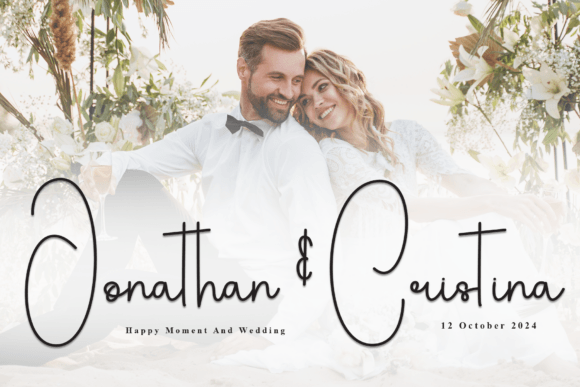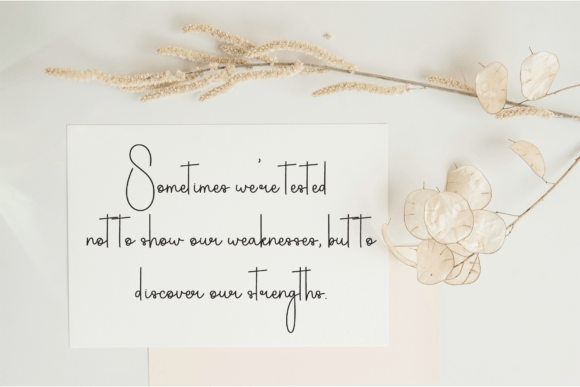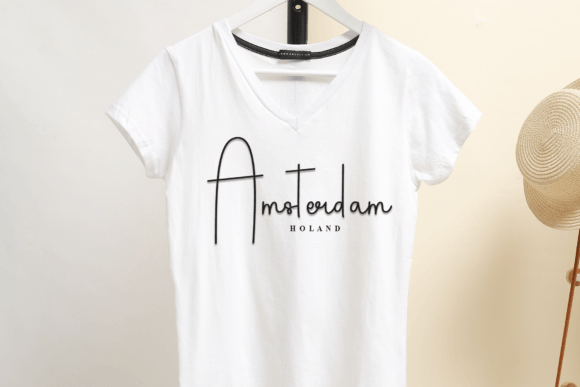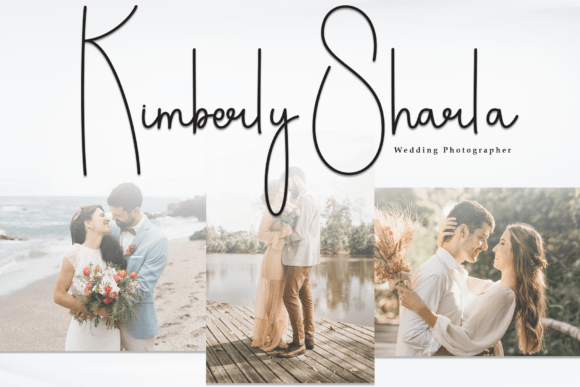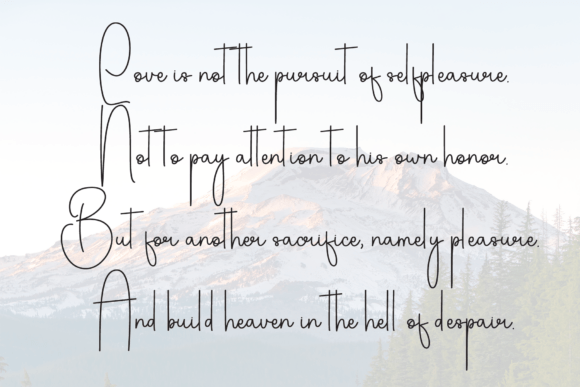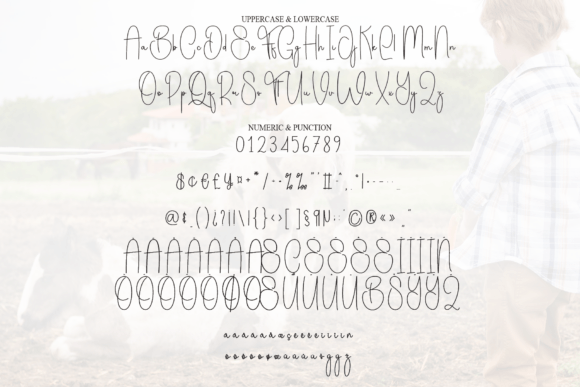
Introduction to Baby Farmhouse Font
Have you ever been browsing through a beautifully designed wedding invitation and thought to yourself, “I wish I could create something that looks like this for my next big event”? As a designer, you know how important it is to find the perfect font to bring your creative project to life. And that’s exactly where the Baby Farmhouse Font comes in – a stunning handwritten script font that exudes elegance and charm.
Imagine adding a touch of warmth and sophistication to your design with the Baby Farmhouse Font’s fluid strokes and natural flow. Whether you’re creating invitations, branding materials, or social media graphics, this font is sure to captivate your audience and leave a lasting impression. With its high-quality design and transparent background, the Baby Farmhouse Font is a valuable resource for designers looking to elevate their work.
Key Features of Baby Farmhouse Font
- Unique, hand-drawn design perfect for creative projects and scrapbooking.
- Includes a transparent background, making it easy to use in various design applications.
- Features a charming, whimsical style that’s ideal for baby-themed designs and farmhouse-inspired projects.
Honest Review: Baby Farmhouse Font
I recently had the chance to work with the Baby Farmhouse Font, and I must say it’s a lovely addition to any creative project. As a designer, I appreciate high-quality design resources like this one.
What works well: ✨ The Baby Farmhouse Font has a charming, rustic feel that’s perfect for projects with a vintage or country theme. The font is also highly versatile, with a range of weights and styles to choose from. The transparent background makes it easy to combine with other design elements.
Overall impression: I was impressed with the quality and charm of the Baby Farmhouse Font. It’s a great choice for designers working on projects that require a rustic or vintage feel. However, the limitations of the free version may be a drawback for some users.
- Range of weights and styles
The Baby Farmhouse Font is perfect for a variety of creative projects, including invitations, greeting cards, and social media graphics. Its rustic, vintage feel makes it ideal for projects with a country or farmhouse theme.